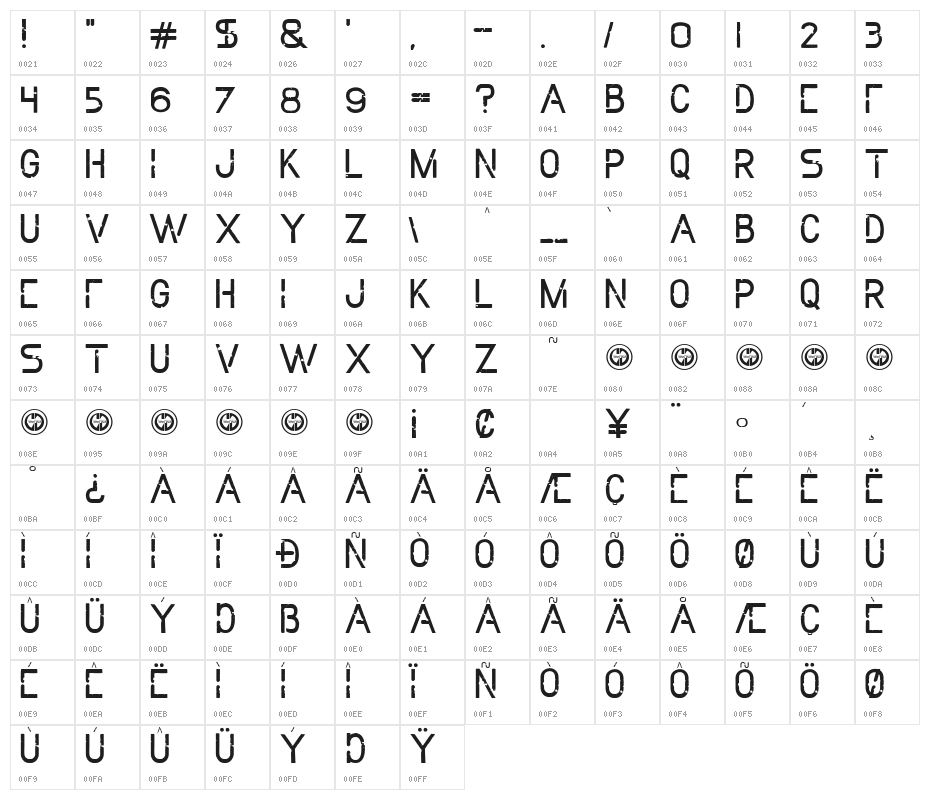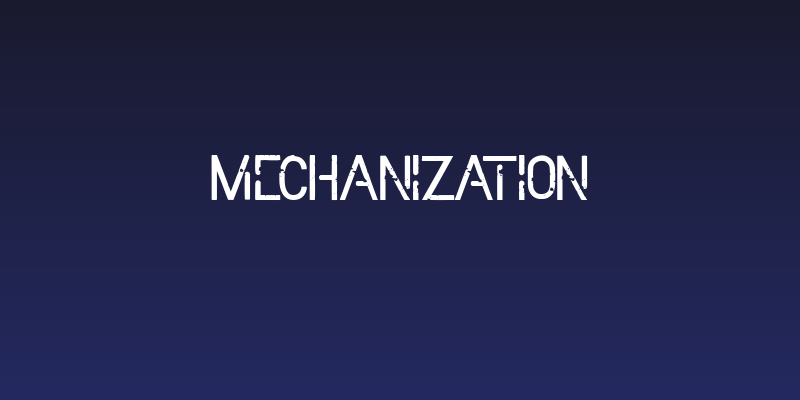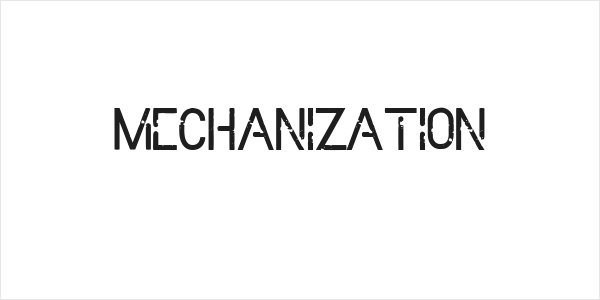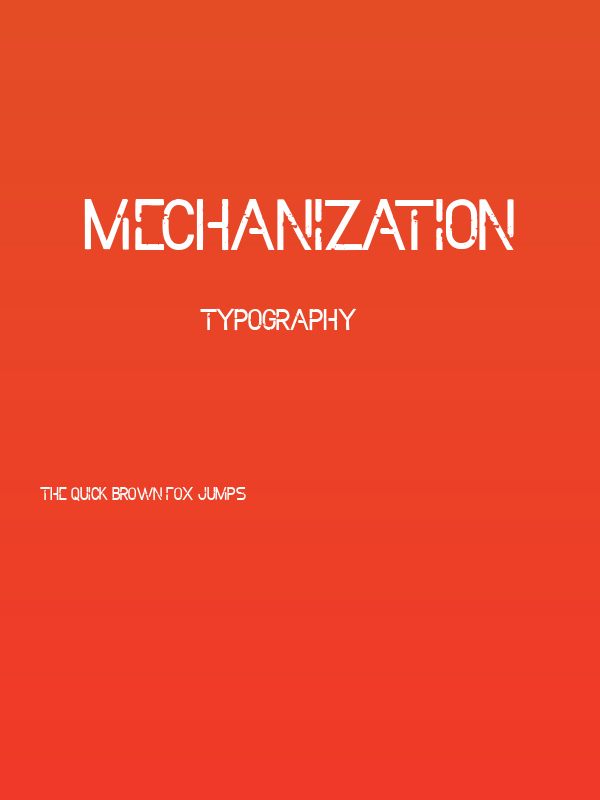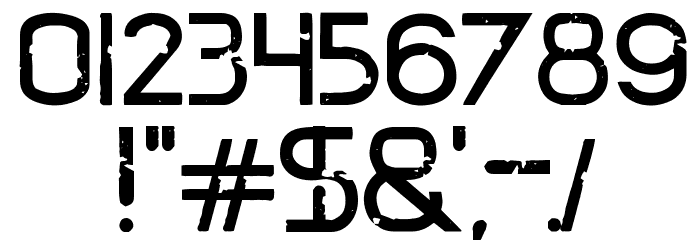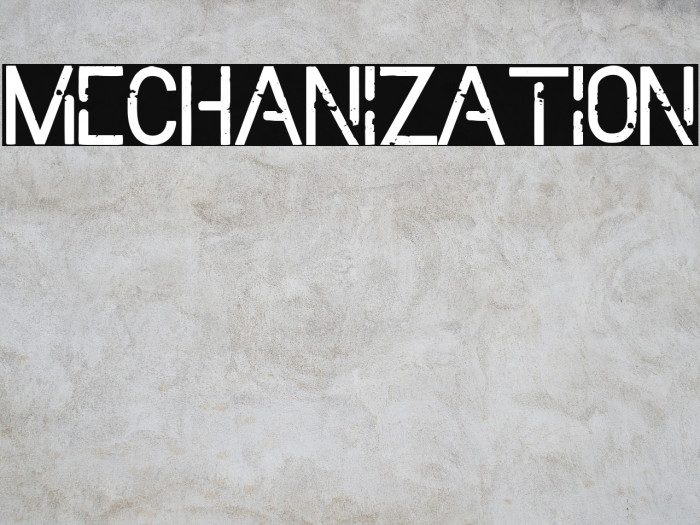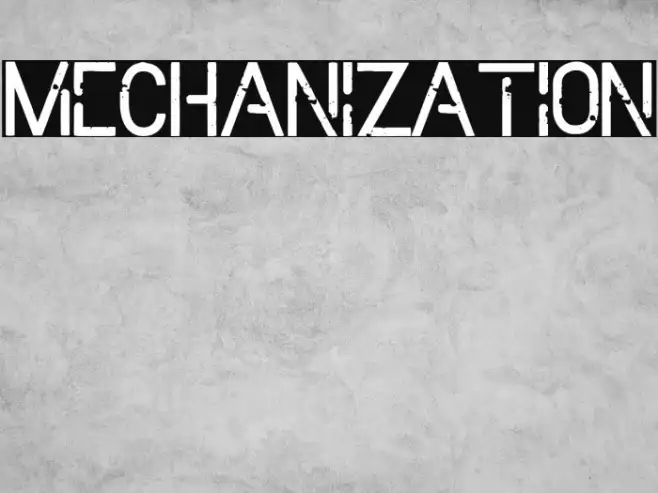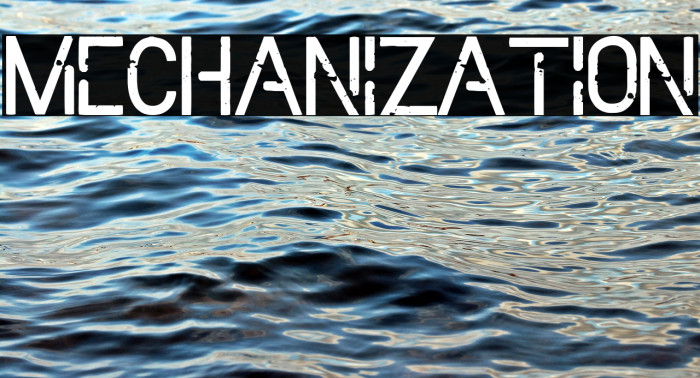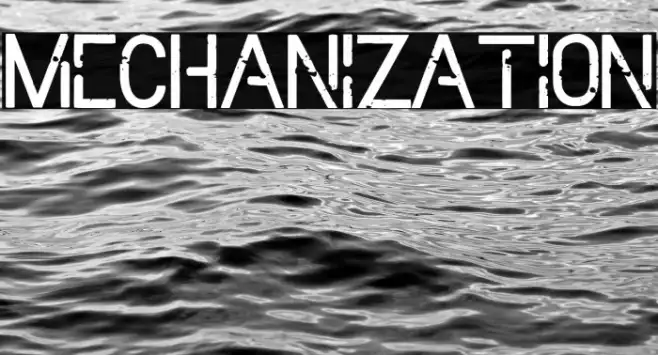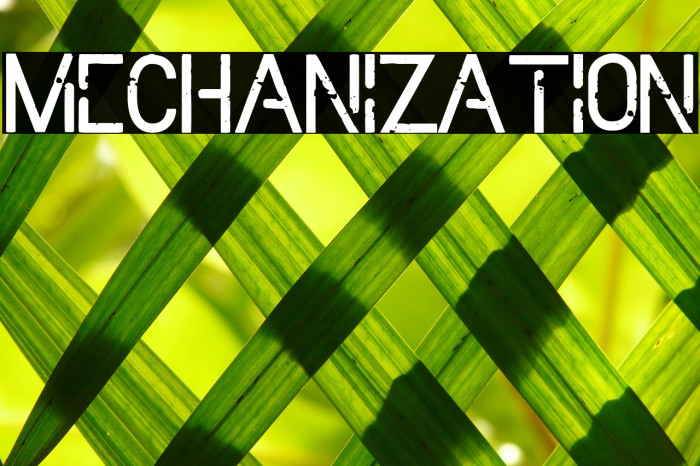
Mechanization Font
Mechanization Description
This font features a rugged, industrial design with a distressed texture that gives it a worn, mechanical appearance. The uppercase and lowercase letters are bold and angular, with sharp edges and a stencil-like quality. The numbers and special characters maintain this industrial aesthetic, making them suitable for designs that require a gritty, urban feel. The font's unique style is reminiscent of machinery and factory settings, ideal for projects that aim to convey strength and durability.
| Overall Style | Industrial, Gritty |
| Use Case | Logos, Posters, Branding |
| Proposed Projects | Ideal for branding in construction, automotive, or tech industries, as well as for posters, album covers, and video game graphics. |